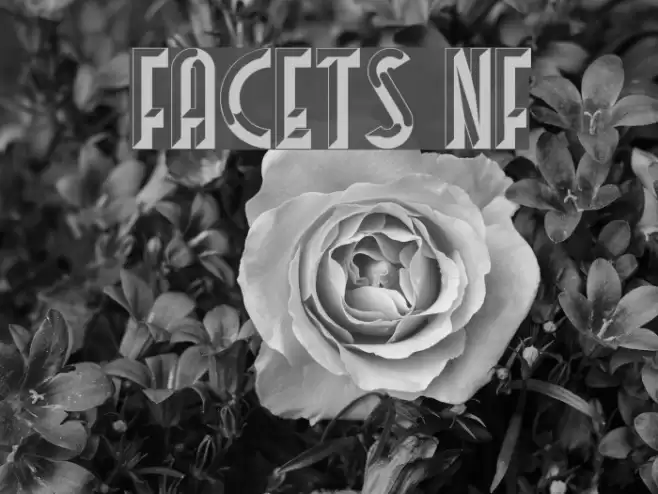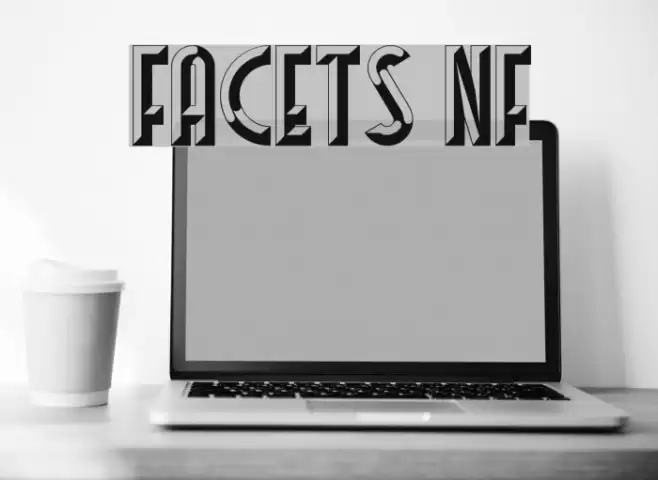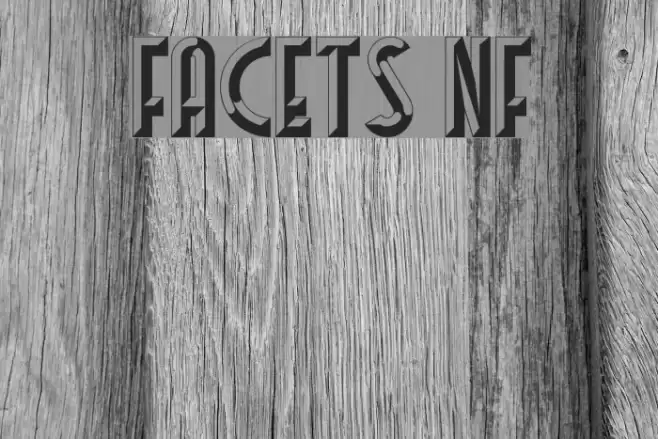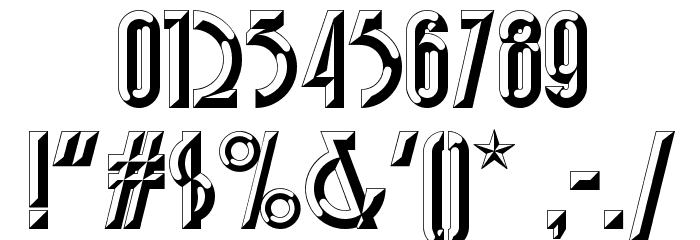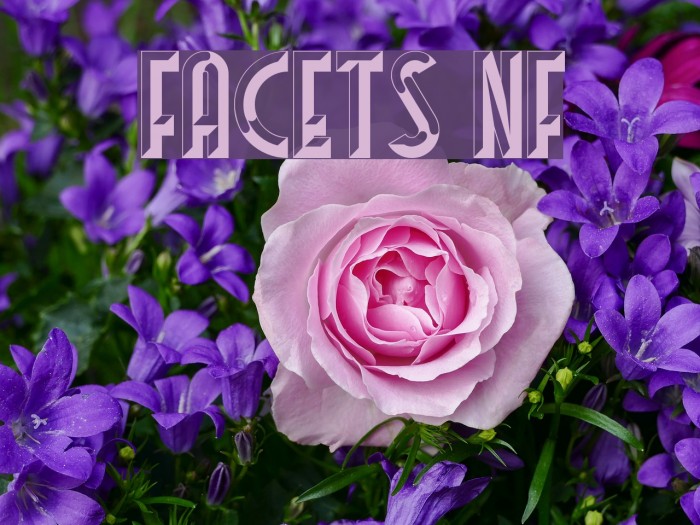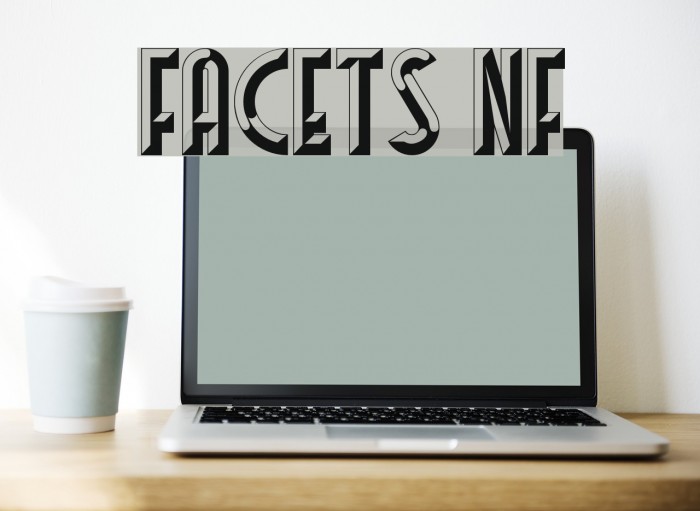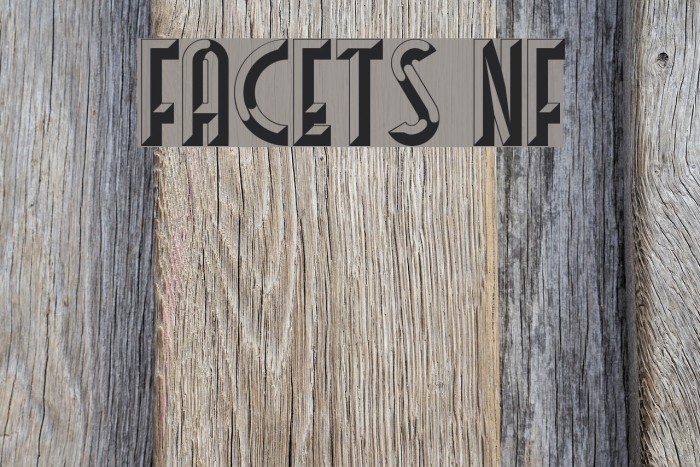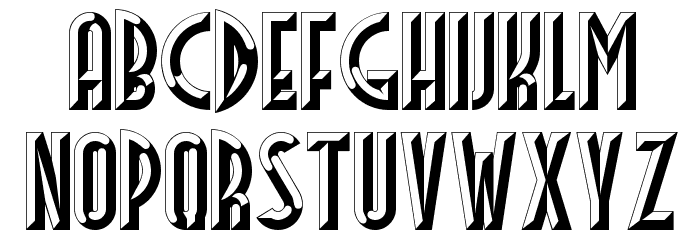
Facets NF Font
Facets NF Description
This font features a bold, geometric design with a three-dimensional effect, achieved through the use of shadowing and faceted edges. The characters are uppercase with a strong, angular appearance, creating a sense of depth and dynamism. The numbers and special characters follow the same stylistic approach, maintaining consistency across the set. The font's unique style makes it stand out, with a modern and futuristic feel that is both eye-catching and versatile.
A bold, geometric font with a three-dimensional, faceted design from 3D fonts.
- Proposed Projects: Ideal for branding, posters, and headlines where a modern and striking appearance is desired.